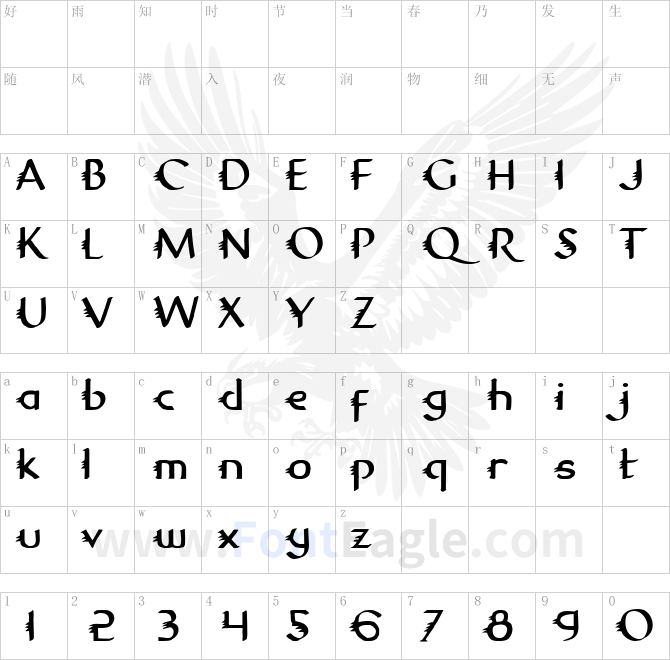
Gypsy-Road is a great font, widely used in graphic design, single-page menu design, poster design and other fields, and is deeply loved by designers.Gypsy-Road download.